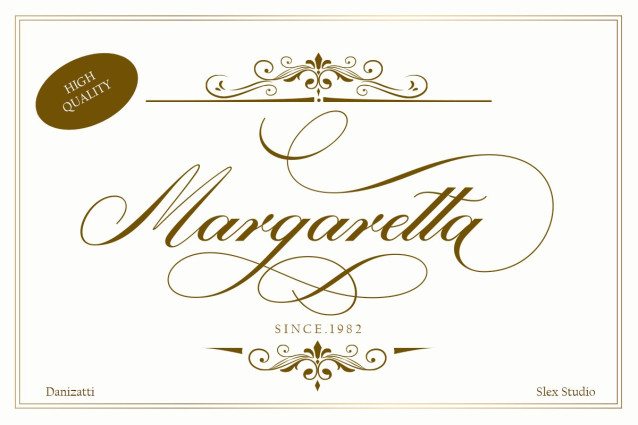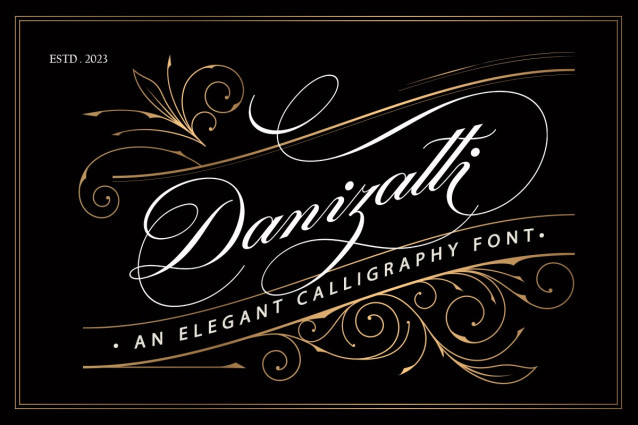
Danizatti Font
Danizatti Font, a kind of classic decorative script with a modern twist. This is a display font intended for vintage logos, fashion labels, custom card headers, badges, food packaging designs, especially wine labels. Actually a lot of great style was consumed when creating this type 🙂 there are 300 fancy letter and punctuation glyphs. I also offer a number of viable stylistic alternatives for multiple letters.